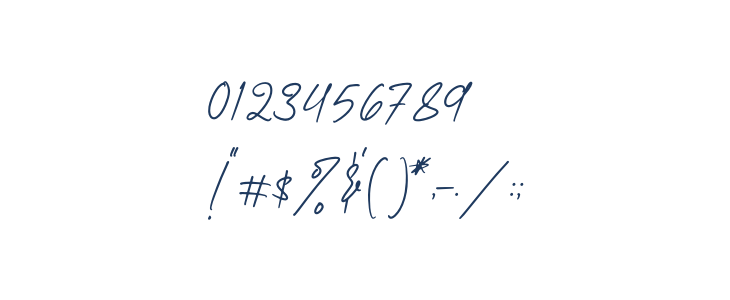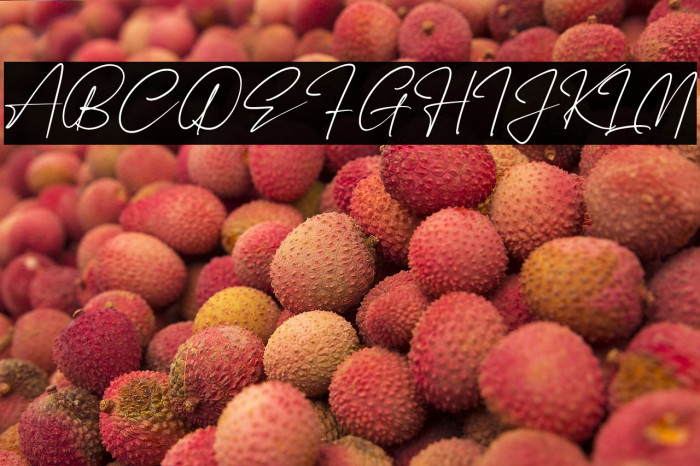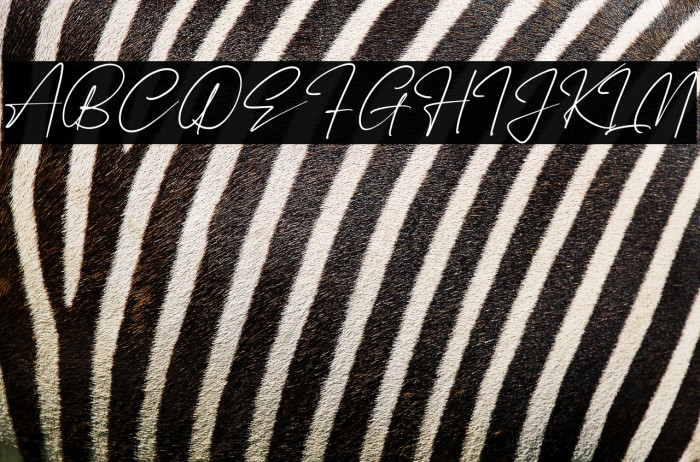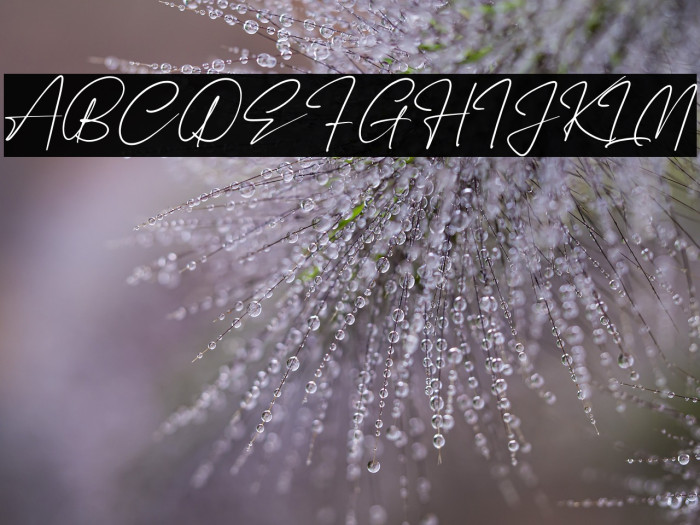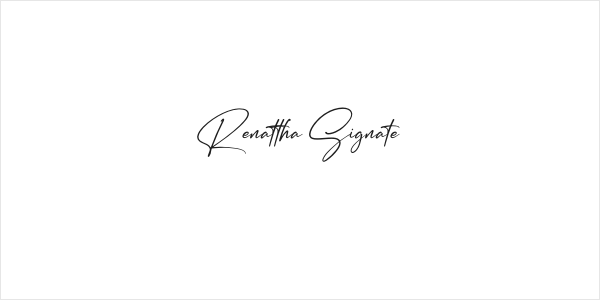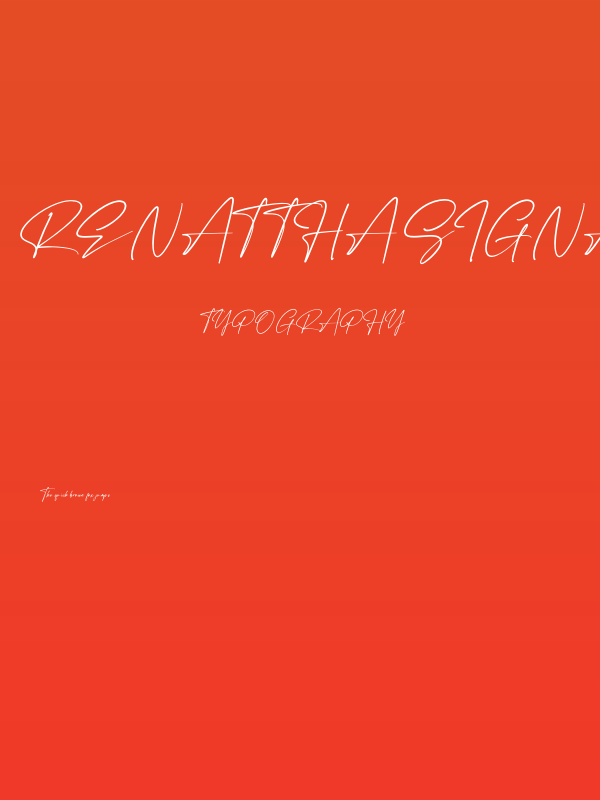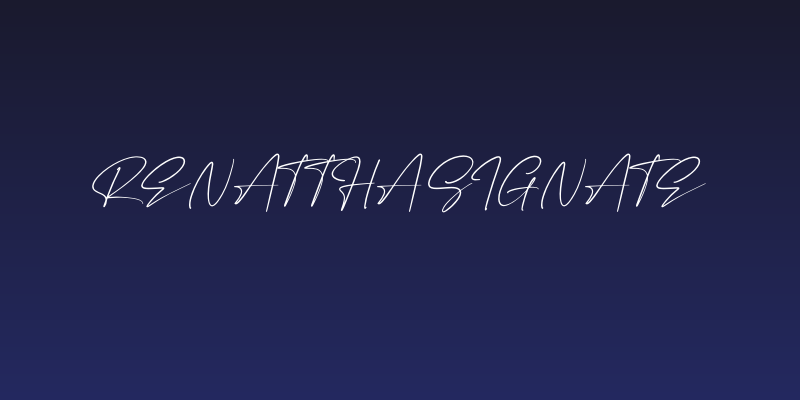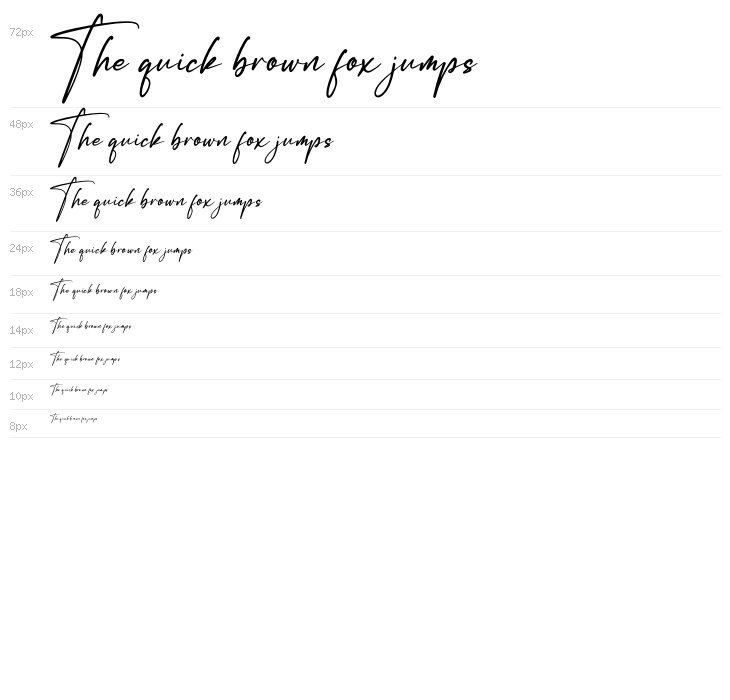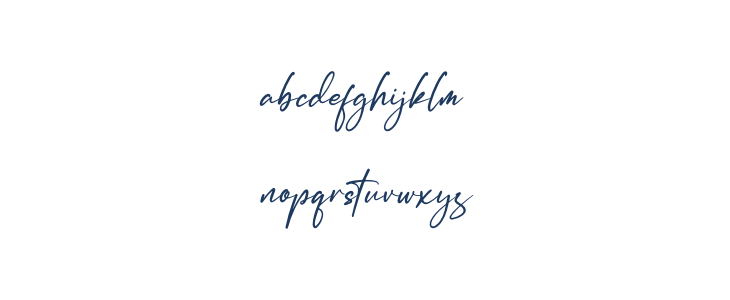
Renattha Signate Font
Renattha Signate Description
This font exudes a sophisticated and elegant style, characterized by its flowing script and cursive elements. The uppercase letters are tall and slender, with graceful loops and swirls that add a touch of flair. The lowercase letters maintain a consistent flow, enhancing readability while retaining an artistic touch. Numbers and special characters are designed to complement the overall aesthetic, with smooth curves and delicate lines. This font is perfect for projects that require a personal, handwritten feel, yet it maintains a level of professionalism and clarity.